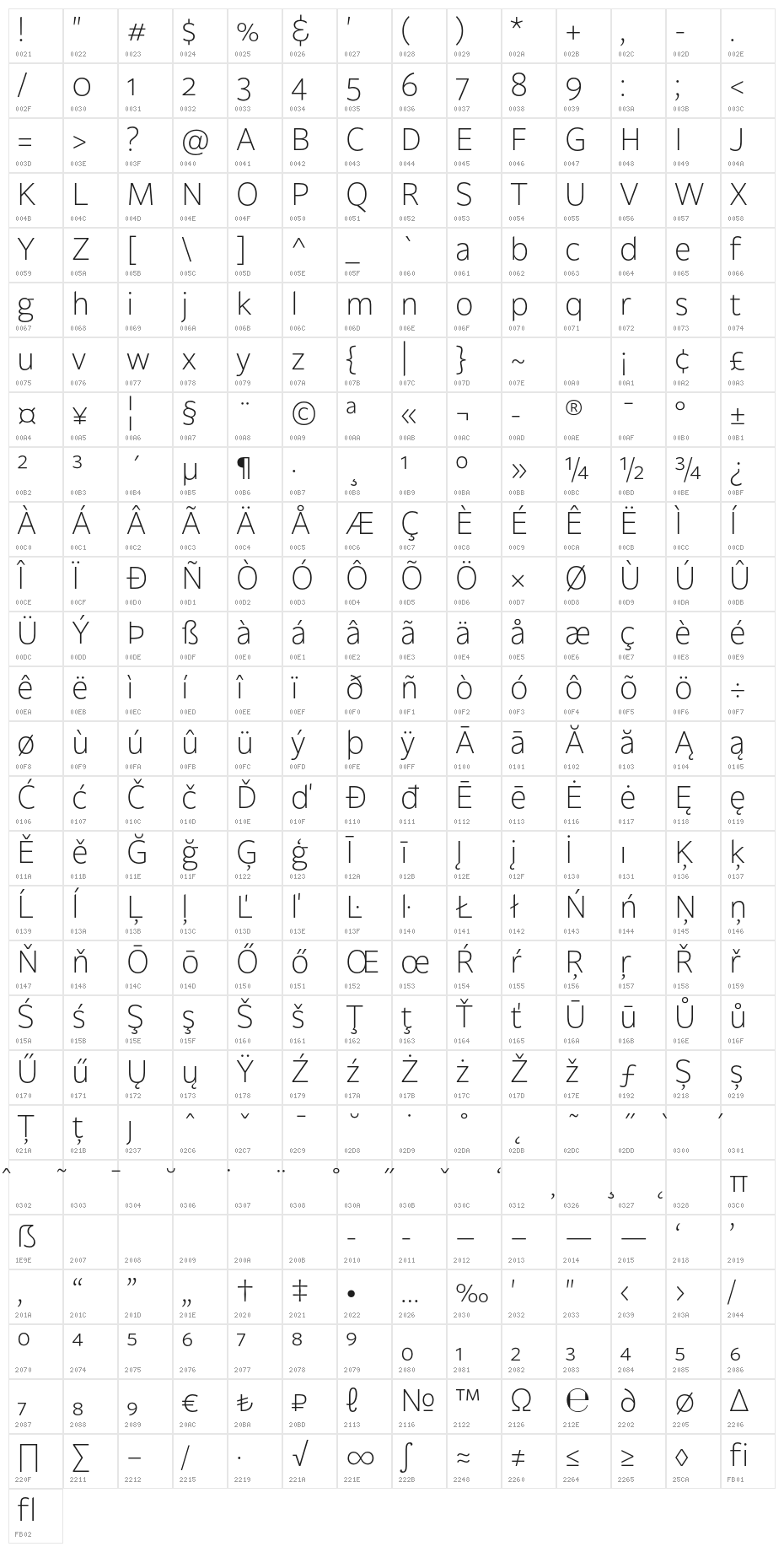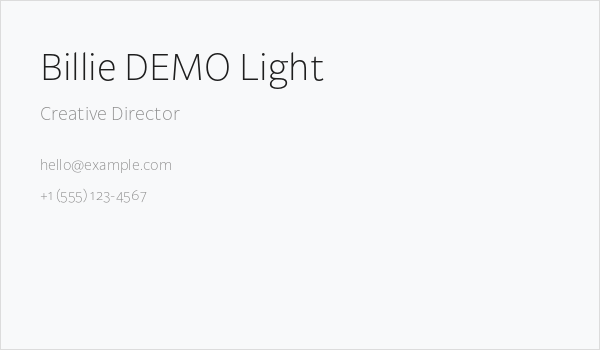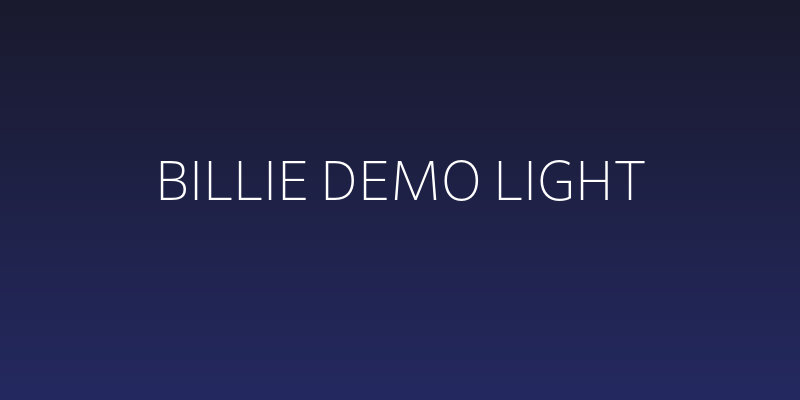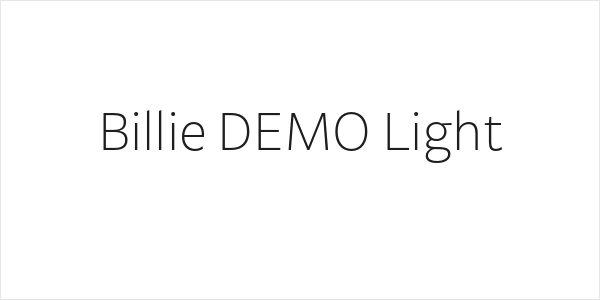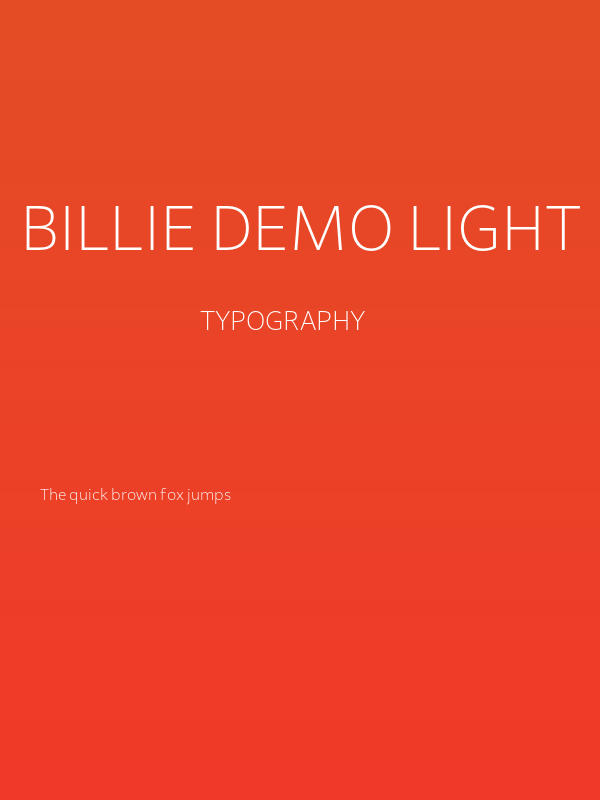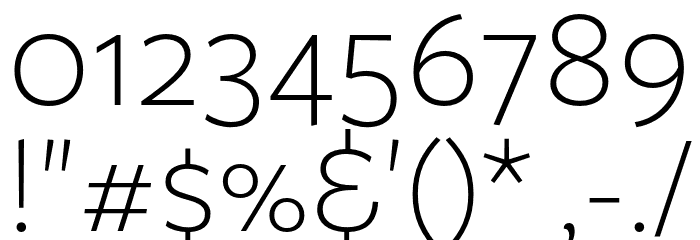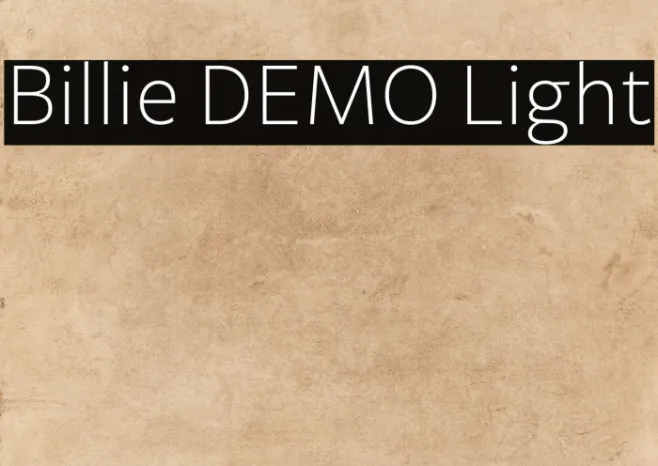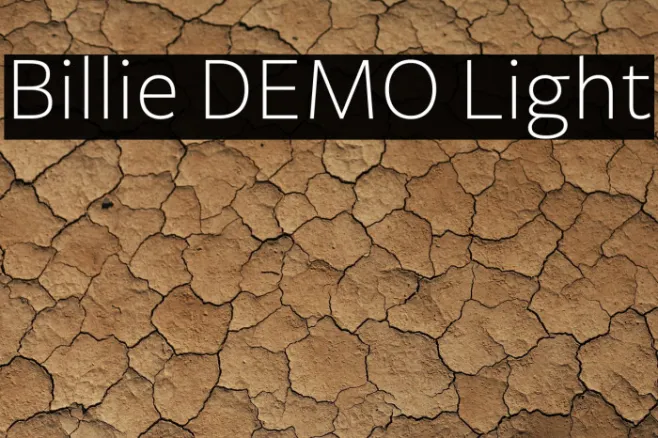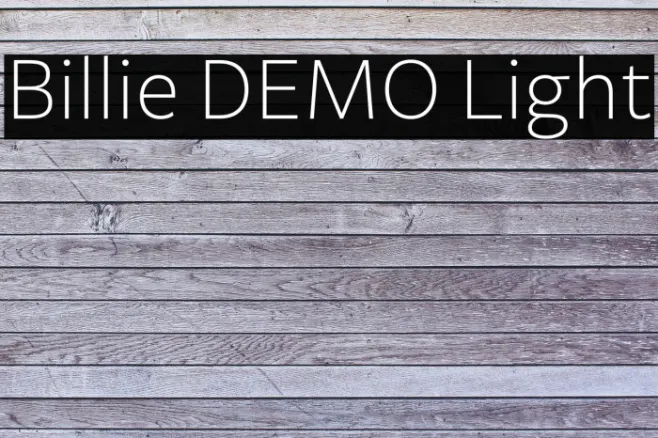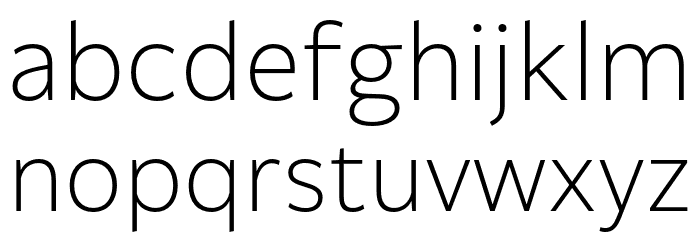
Billie DEMO Light Font
Billie DEMO Light Description
This font features a clean and modern sans-serif style with a light weight, making it ideal for minimalist designs. The characters are evenly spaced with a normal width, providing a balanced and airy appearance. The uppercase and lowercase letters are well-proportioned, and the numerals are clear and easy to read. Special characters are included, maintaining the font's sleek and contemporary aesthetic. The overall design is versatile, suitable for a wide range of applications from digital to print media.
| Proposed Projects | Ideal for branding, web design, and editorial layouts where a modern and clean look is desired. |